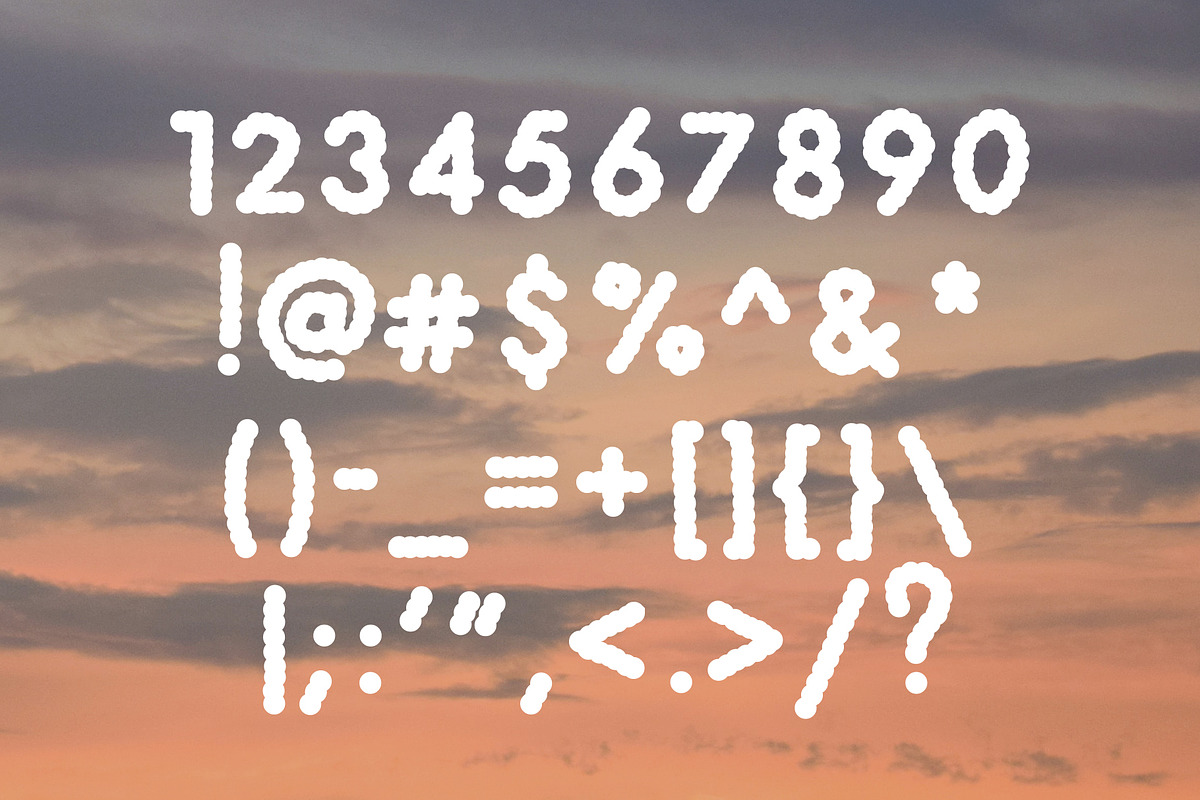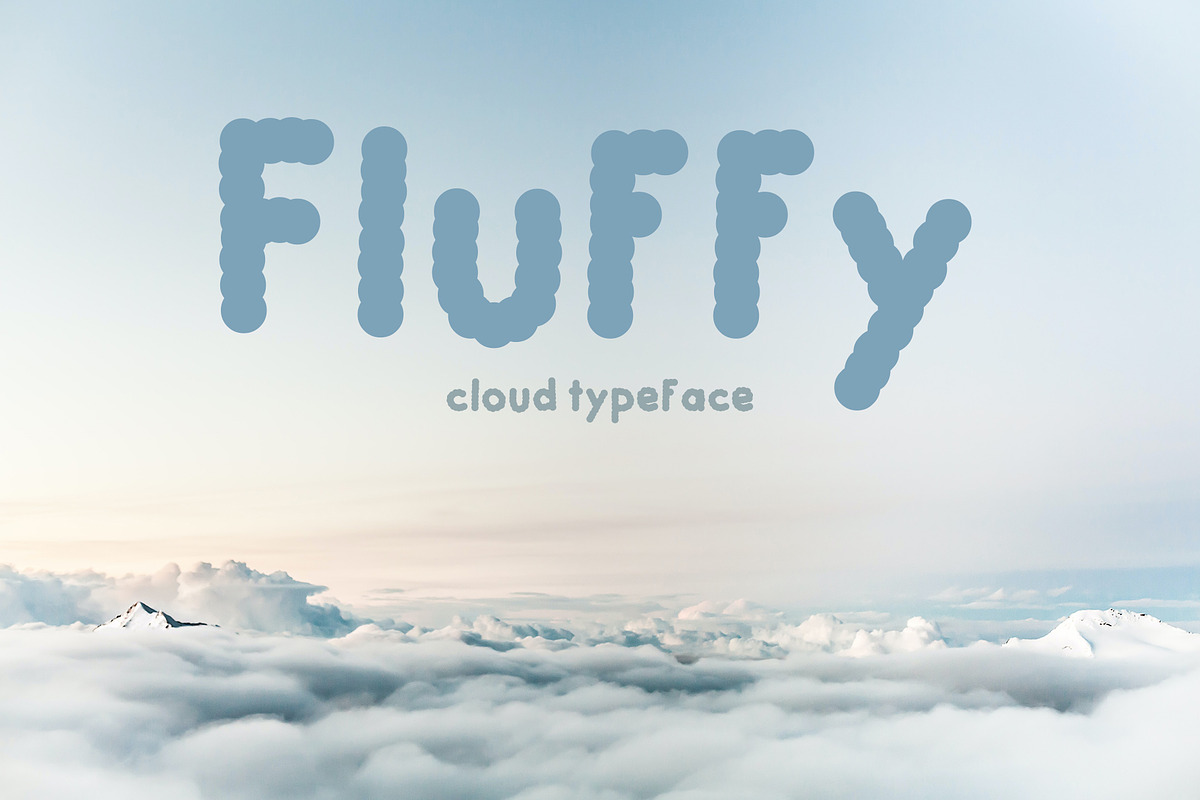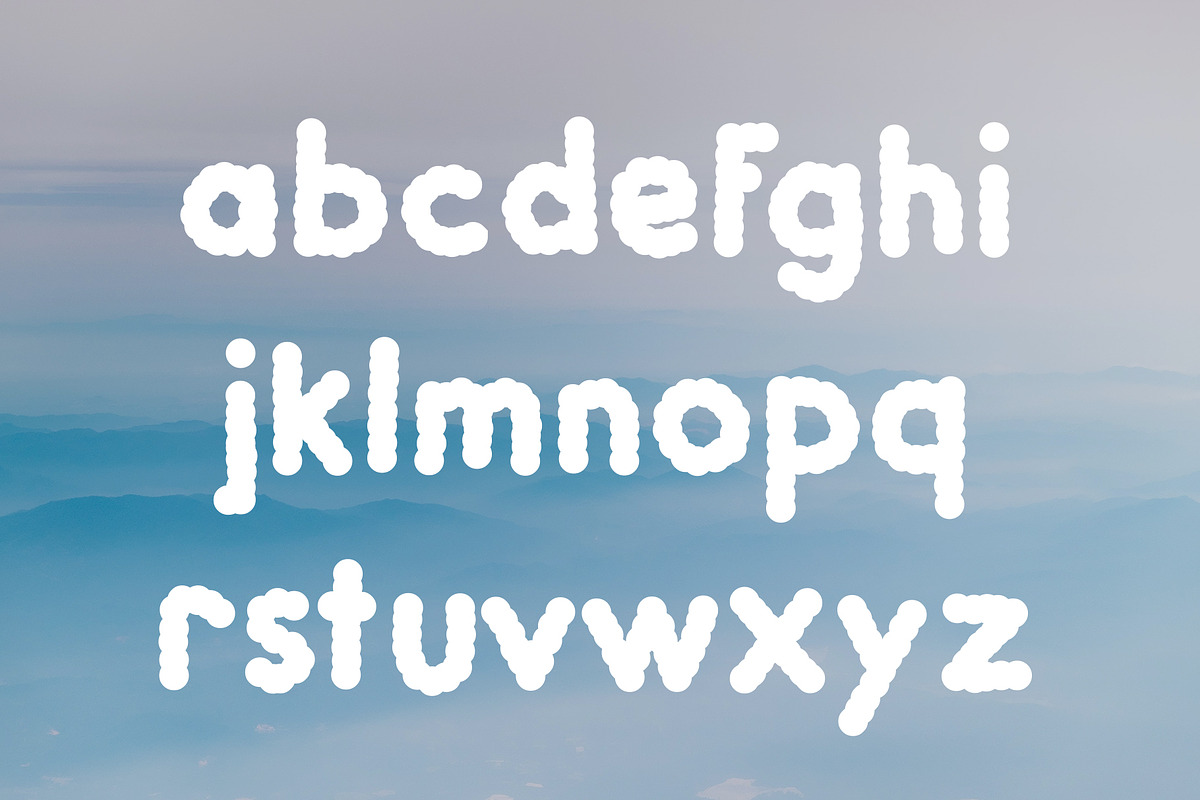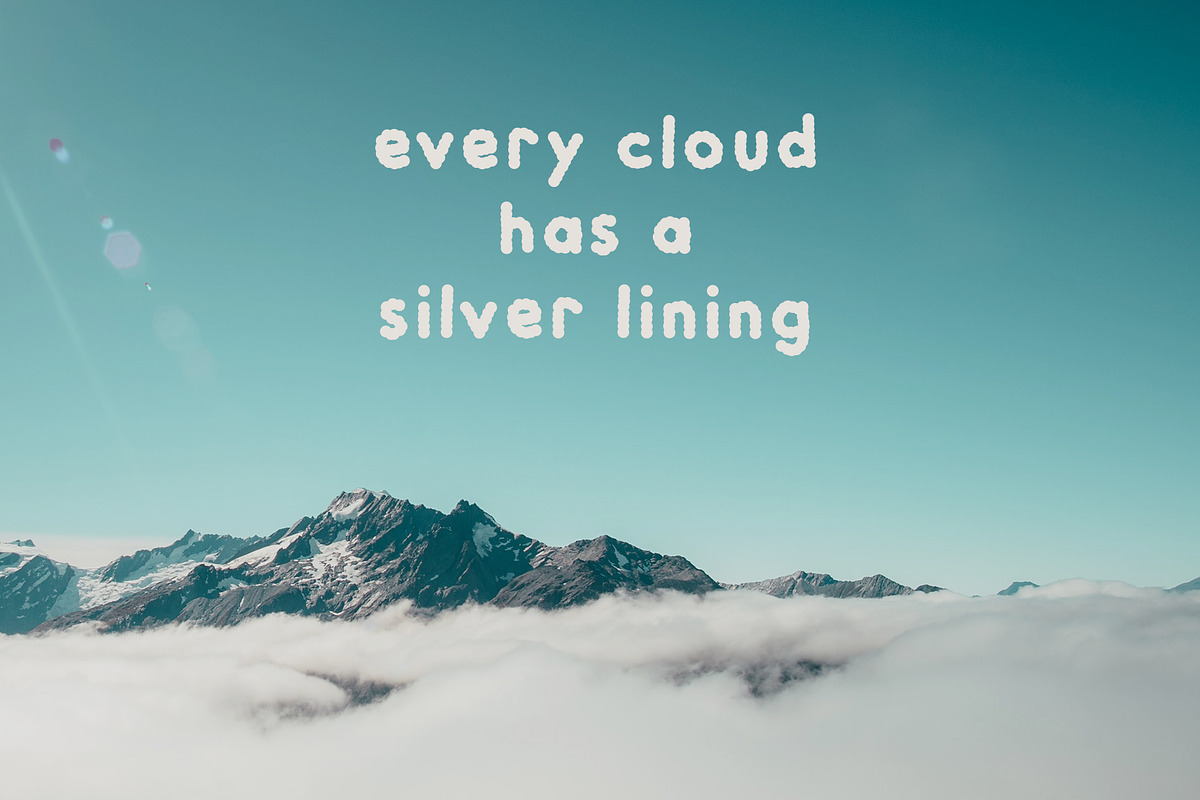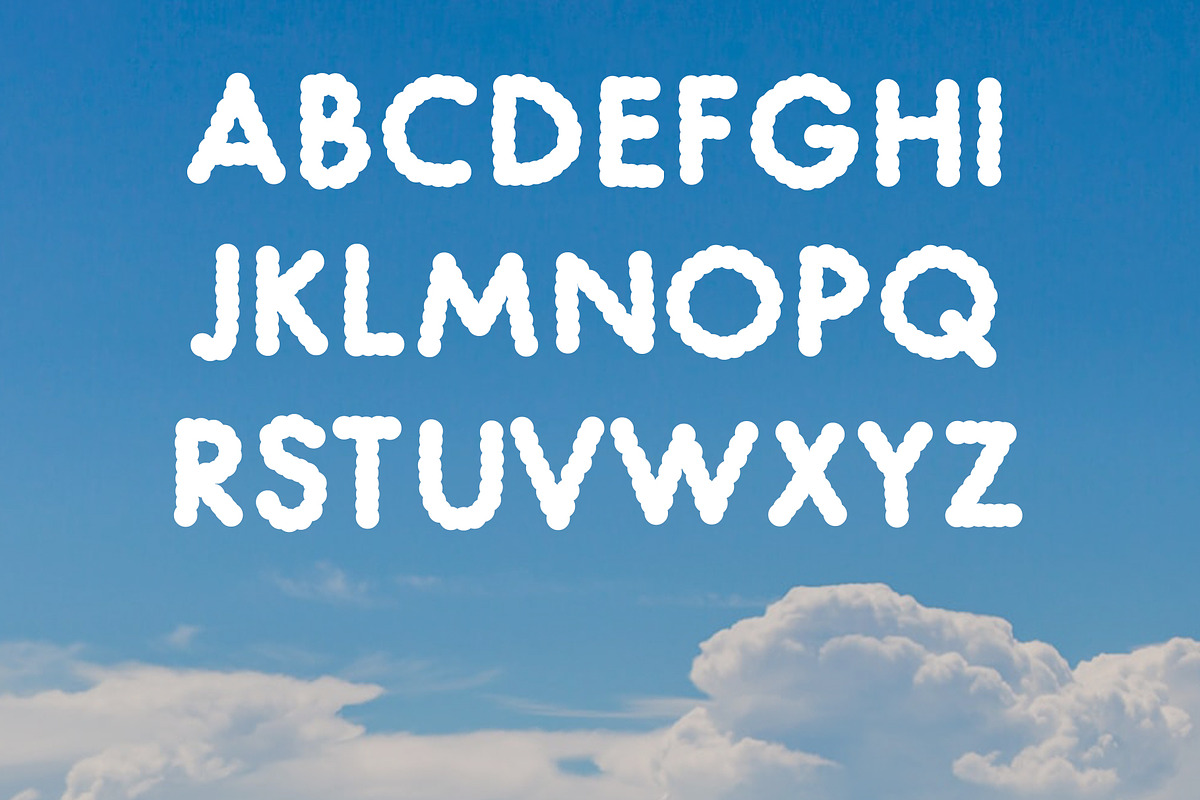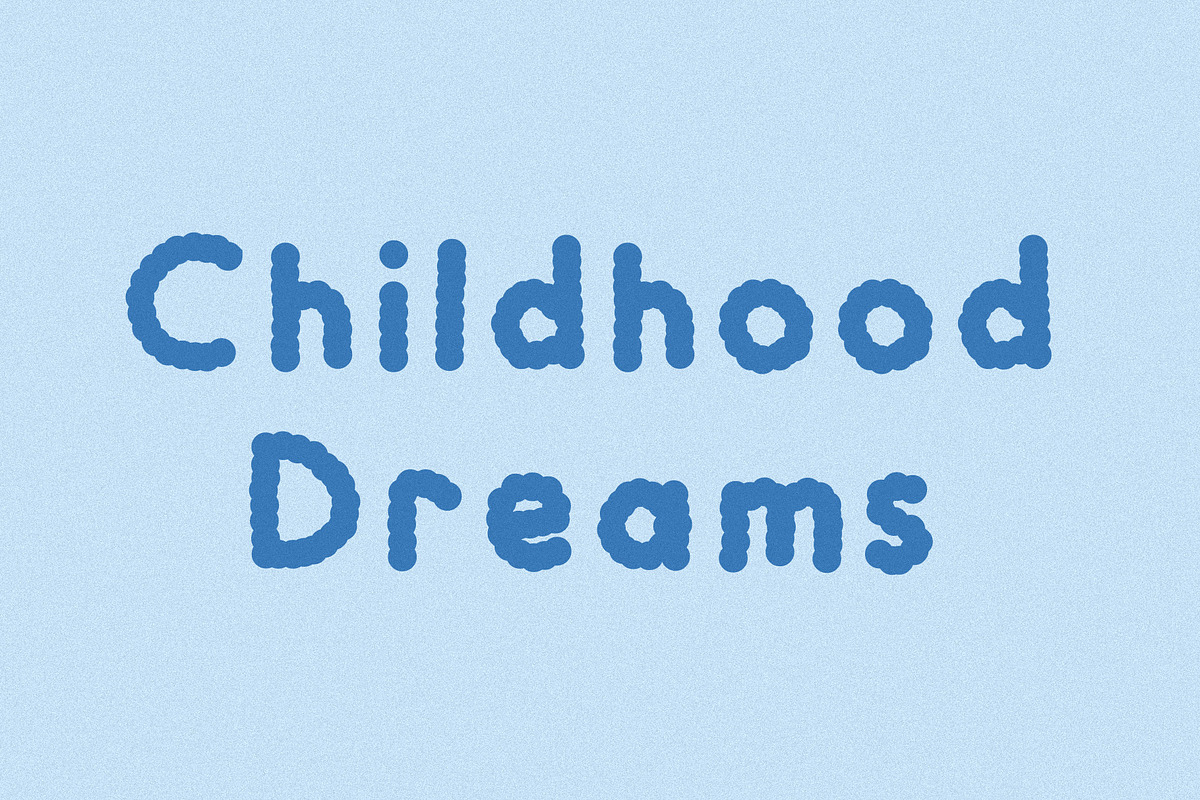
Fluffy - Cloud Typeface
Fluffy - Cloud Typeface by HipFonts is a font selected for branding, posters, packaging, typography.
Fluffy - Cloud Typeface by HipFonts fits naturally into Branding, posters, packaging, typography.